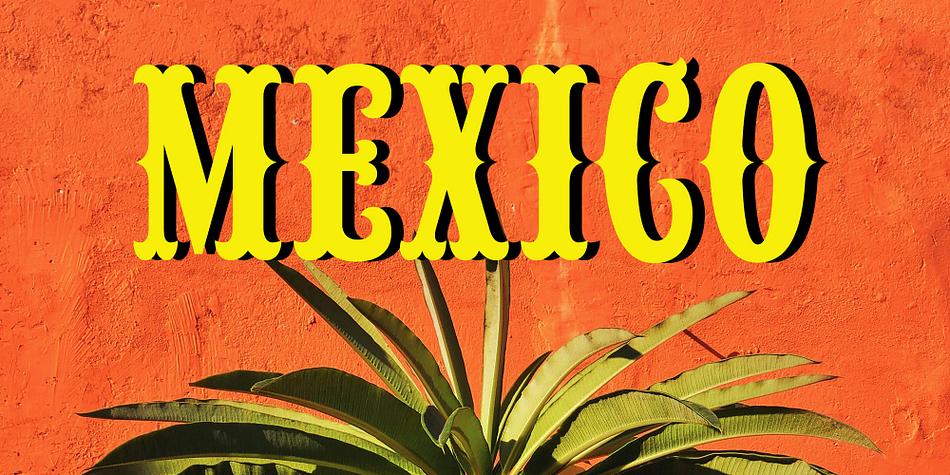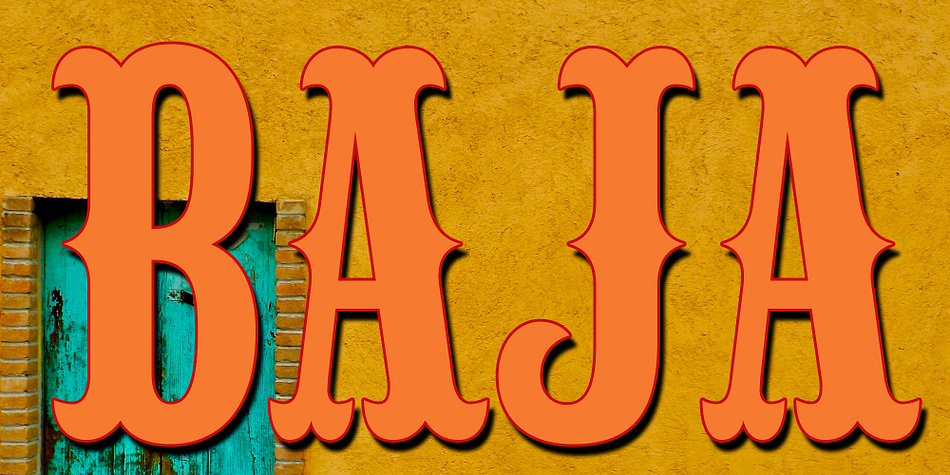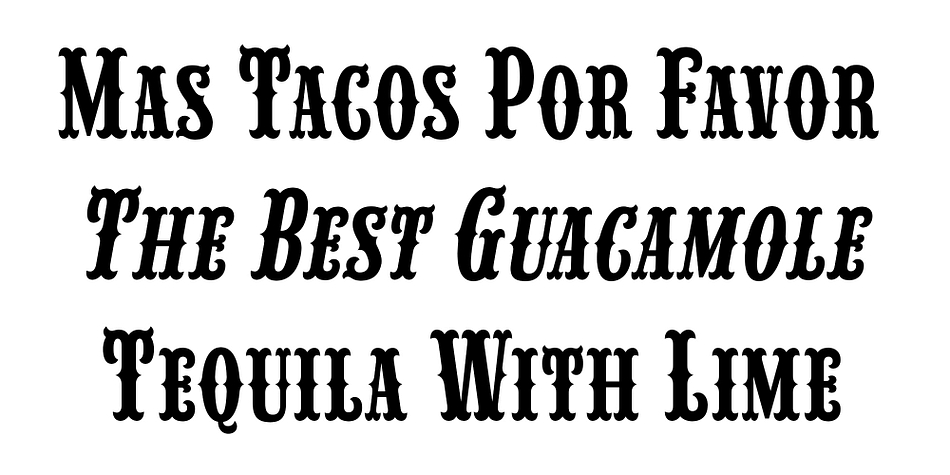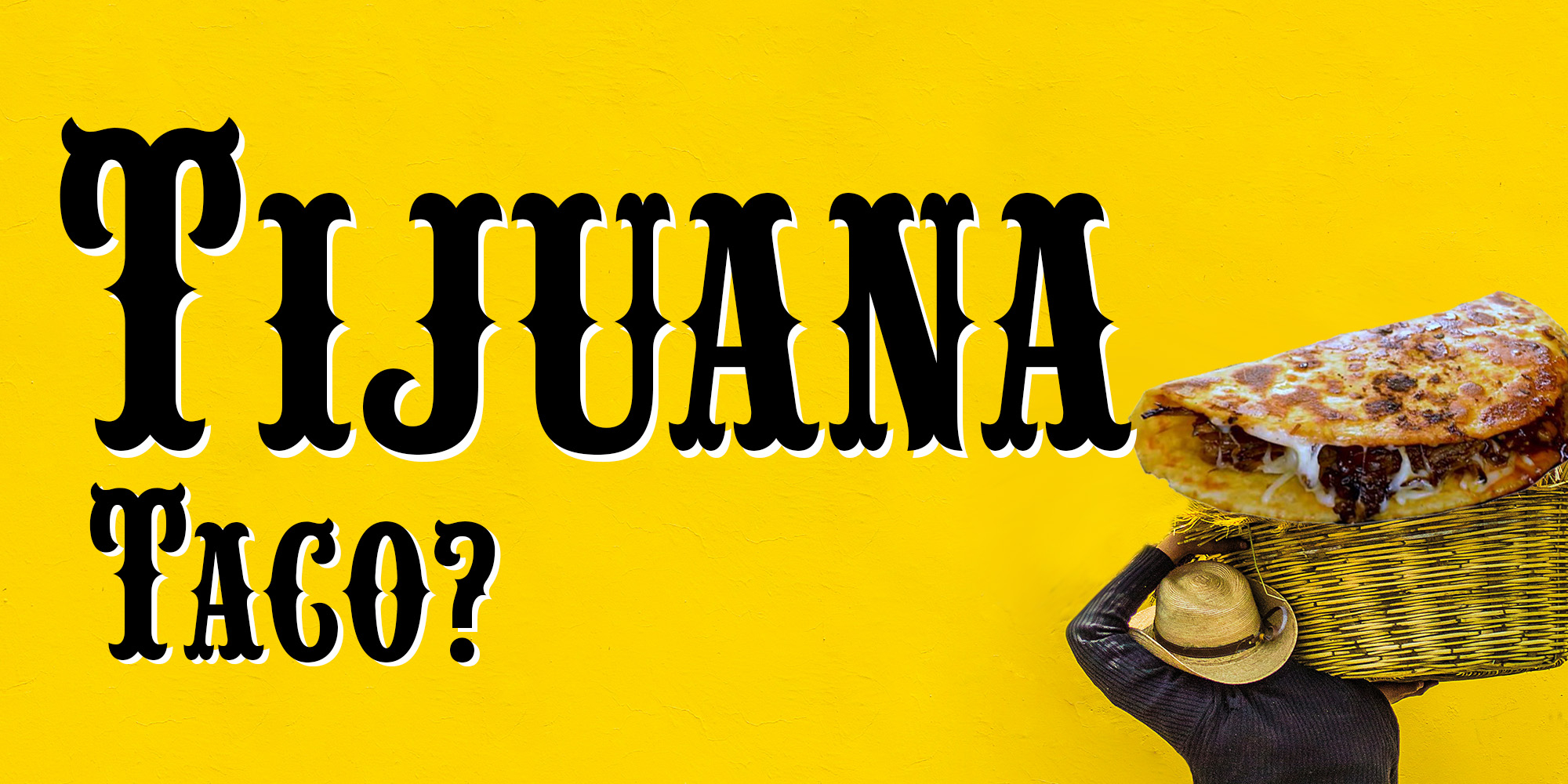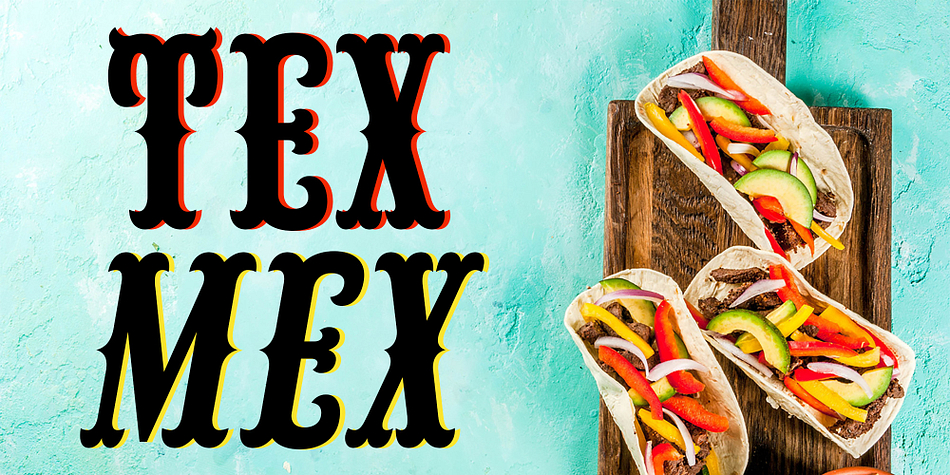
Tijuana Taco
Designed by Michael Hagemann, Tijuana Taco is a western font family. This typeface has four styles and was published by FontMesa.
Tijuana is a spurred version of our Lynchburg font.
Tijuana is perfect for any Mexican and or south western themed projects.
Opening up a new Taco restaurant or Taco Truck? Tijuana is ideal for signage to bring new customers in.
Tijuana small caps version includes small caps ampersand, exclamation and question marks.